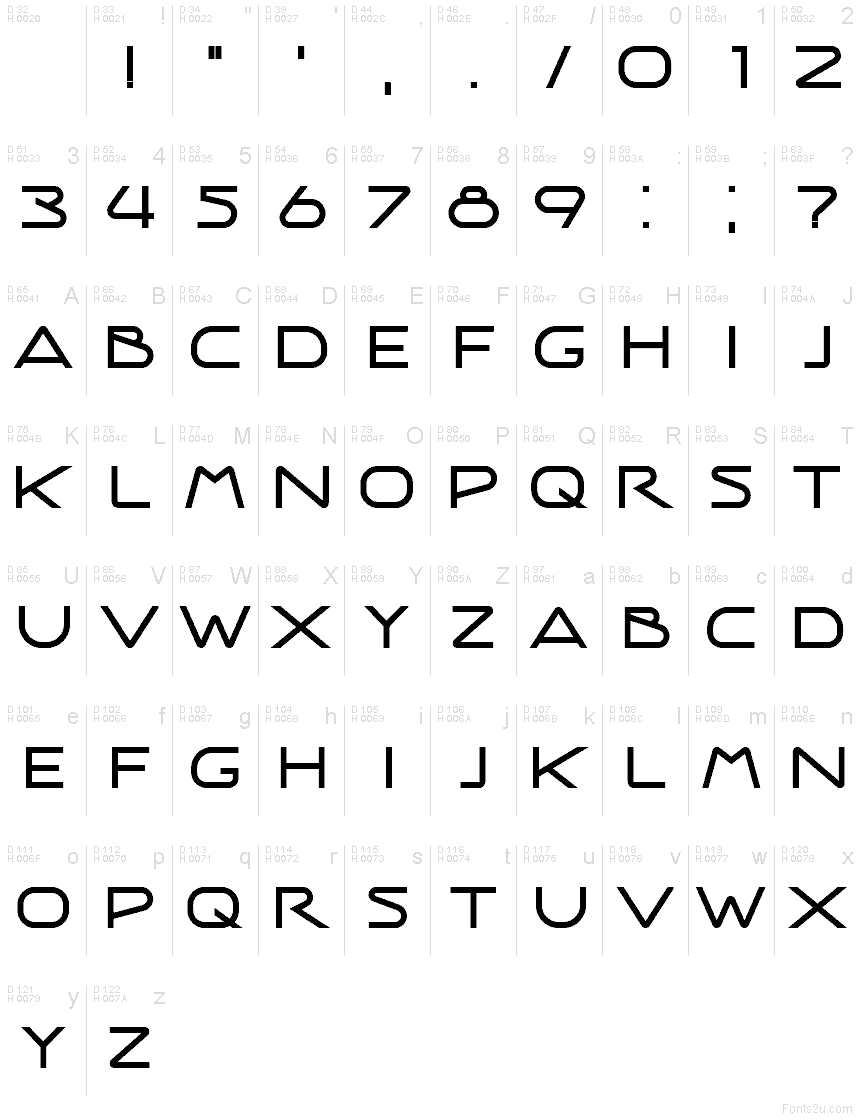
Science And Fiction Bold
Science And Fiction Bold font by Vladimir Nikolic is a free futuristic sans serif display font. Built on razor-straight strokes with sharp wedge cuts and squared curves, it delivers that clean, high-tech feel without getting cold or sterile. The tight rhythm and streamlined forms lock together like panels on a spacecraft, giving headlines instant propulsion while staying legible at a glance. Part of the Science And Fiction family, it carries a cohesive, modular voice.
Using Science And Fiction Bold, titles snap with authority on sci‑fi posters, game splash screens, tech conference branding, gadget packaging, space‑themed book covers, and streaming overlays. The narrow counters and engineered angles create a crisp, luminous silhouette that reads fast on screens and signage. For balance, pair this free font’s headlines with a neutral geometric sans in regular weight and keep generous letterspacing at large sizes to let those cuts breathe.